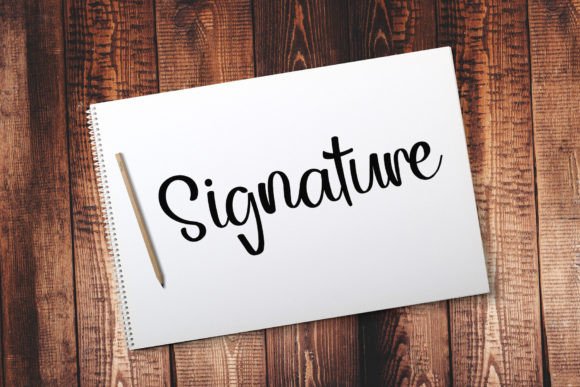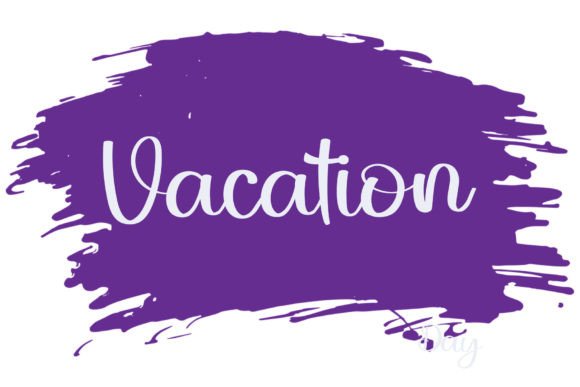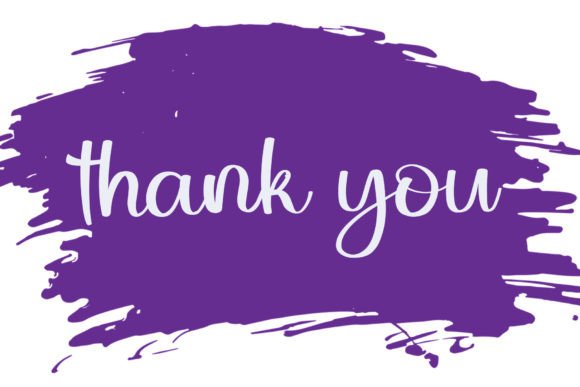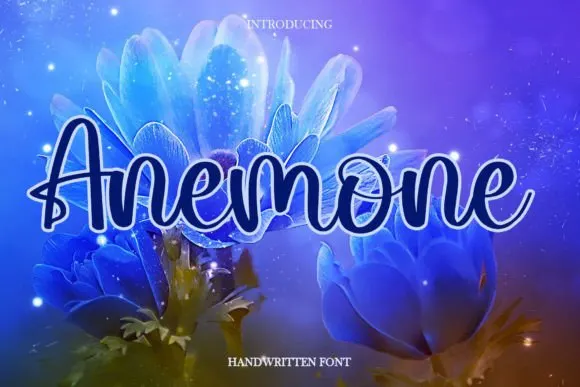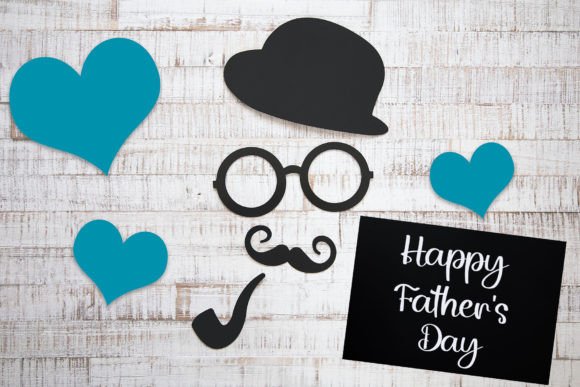
Script Fonts Anemone 0 214 FacebookTwitterPinterestWhatsApp 1 of 5 Anemone Poster 2... Anemone Poster 3... Anemone Poster 4... Anemone Poster 5... About Anemone is a sweet and romantic handwritten script font. Fall in love with its incredibly versatile style and use it to create gorgeous wedding invitations, beautiful stationary art, eye-catching social media posts, and much more! DOWNLOAD NOW